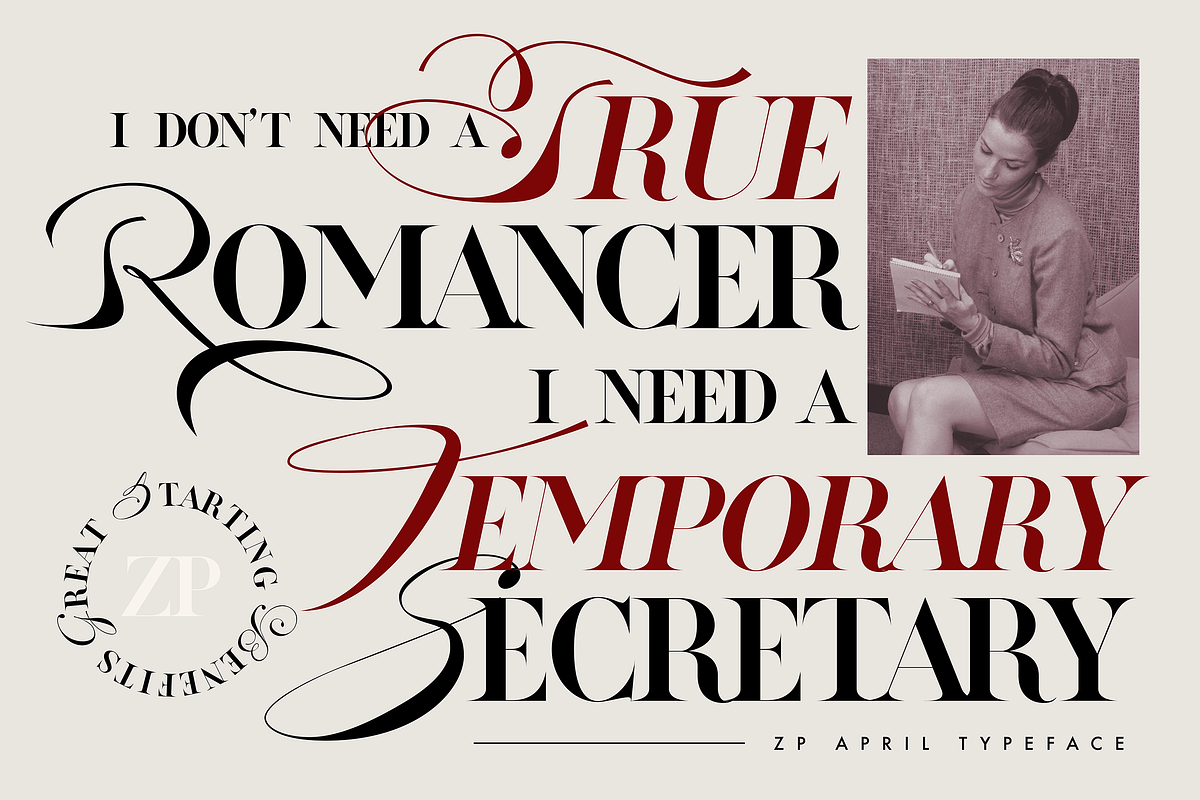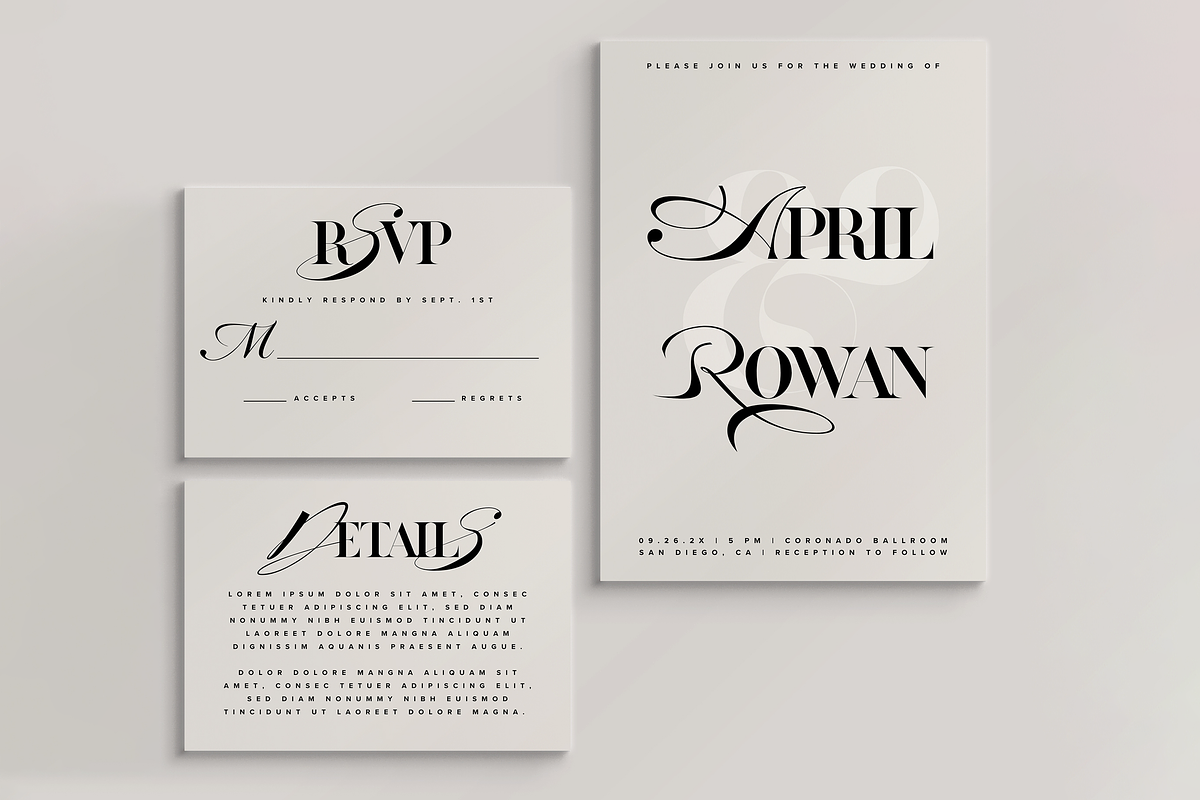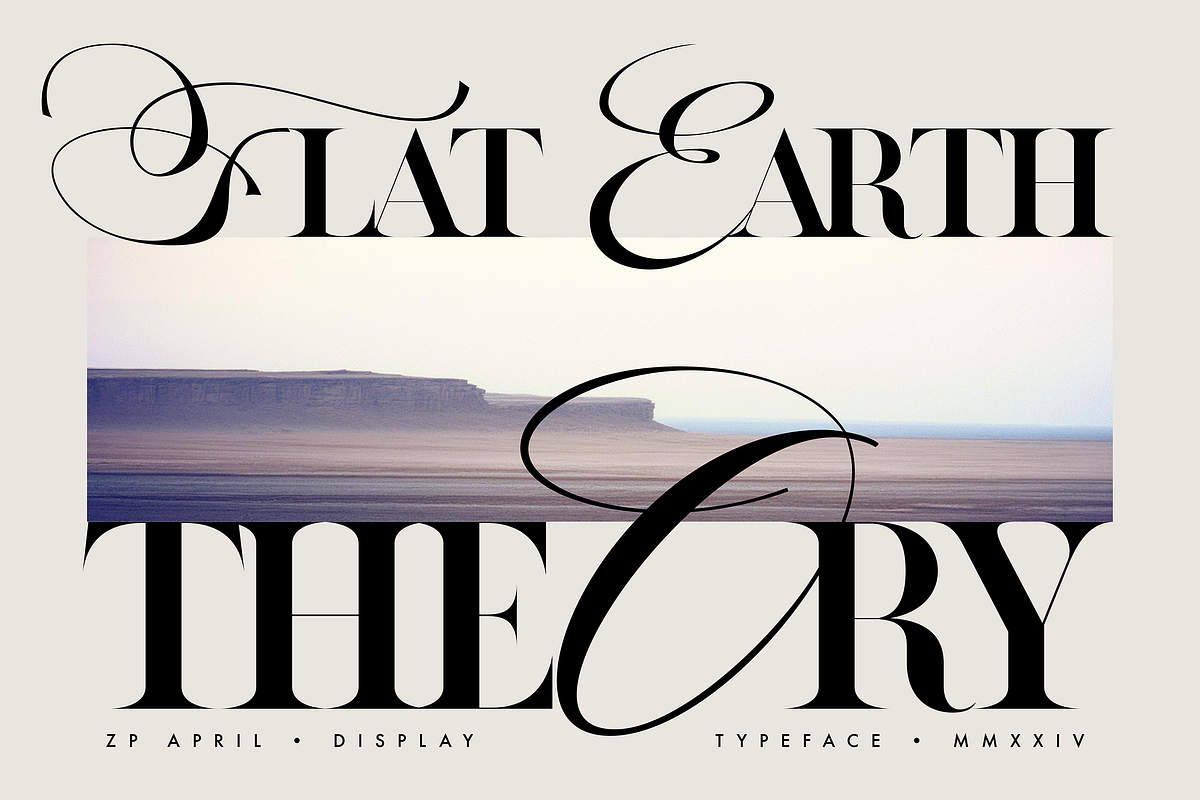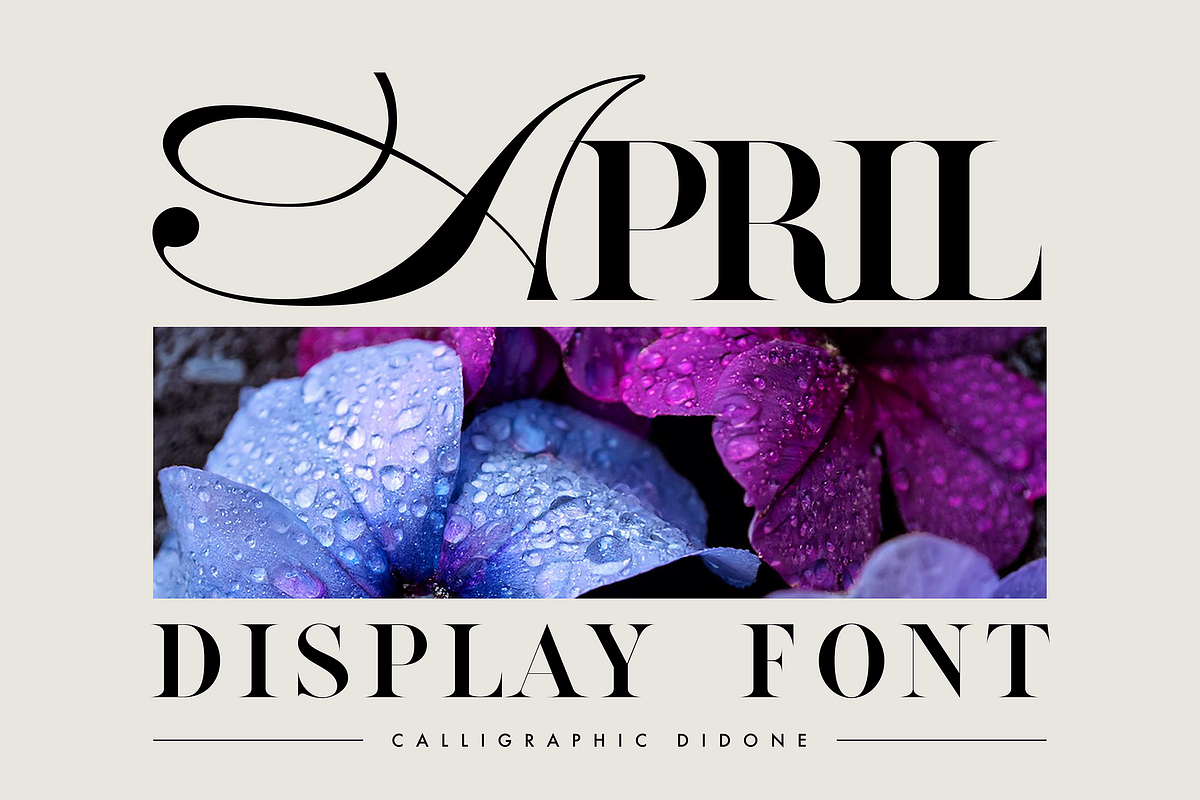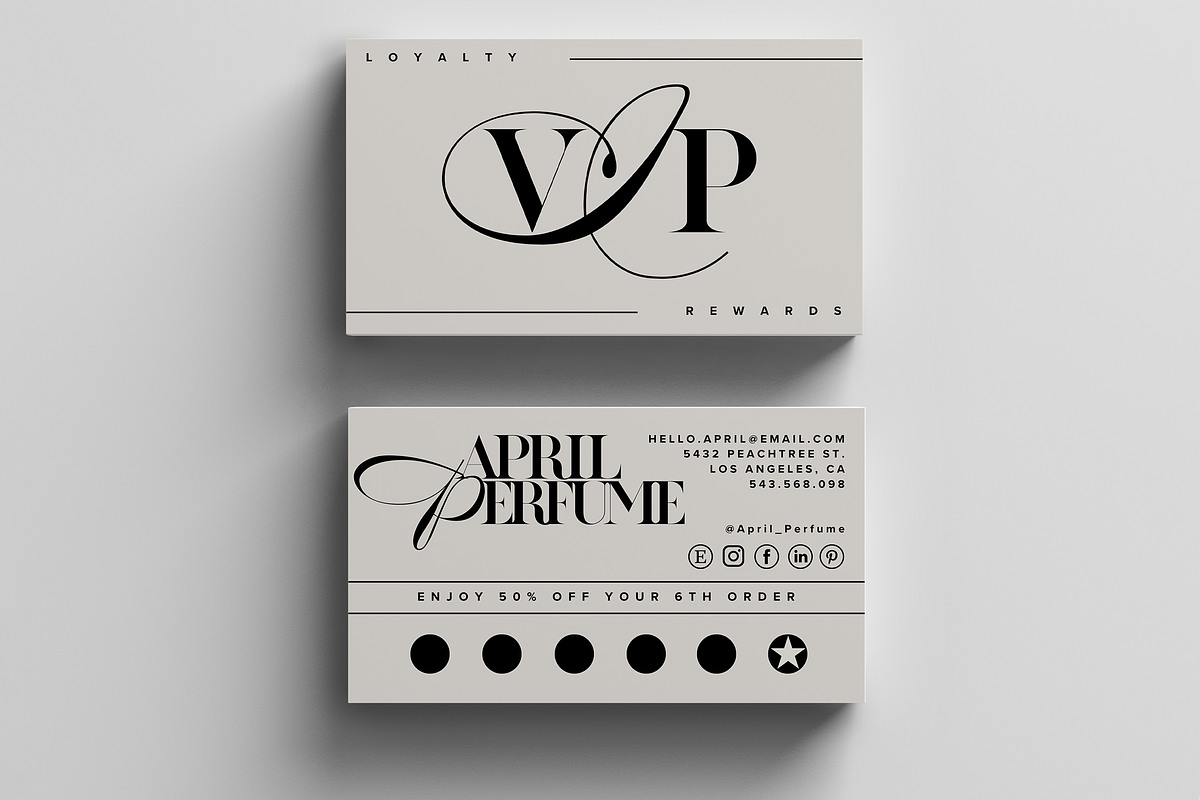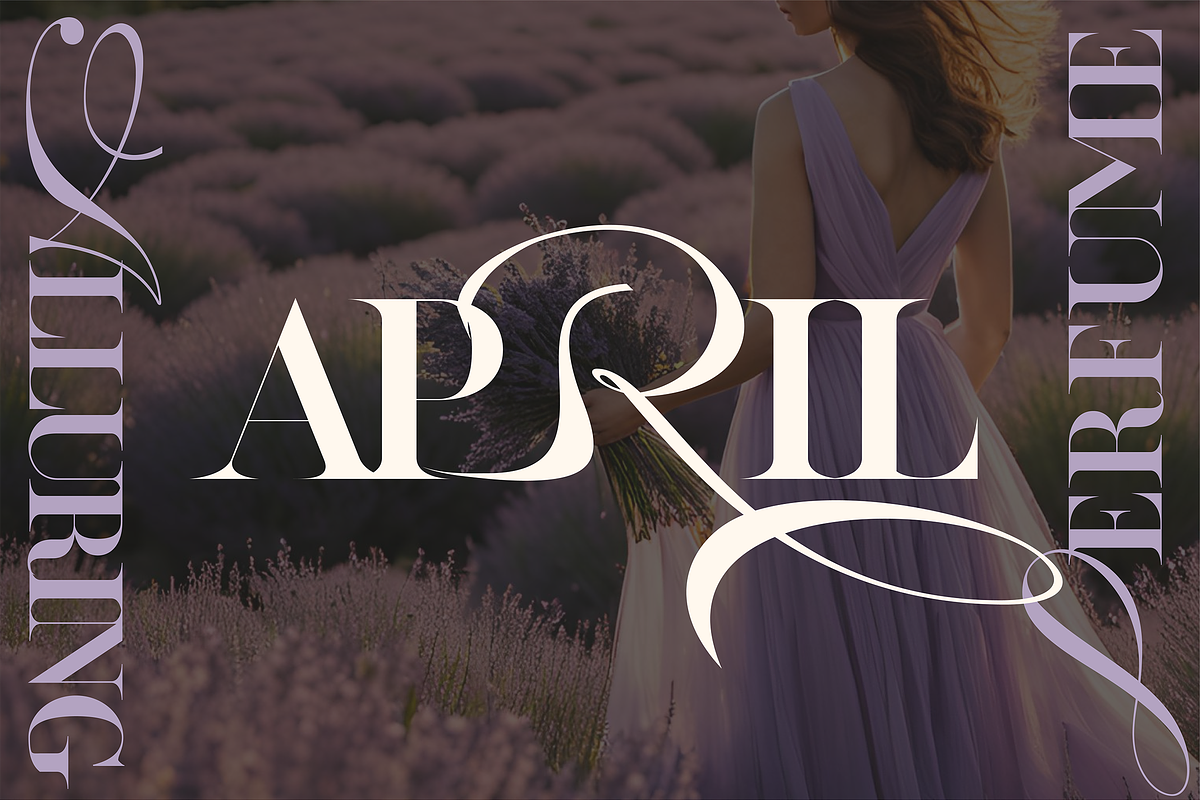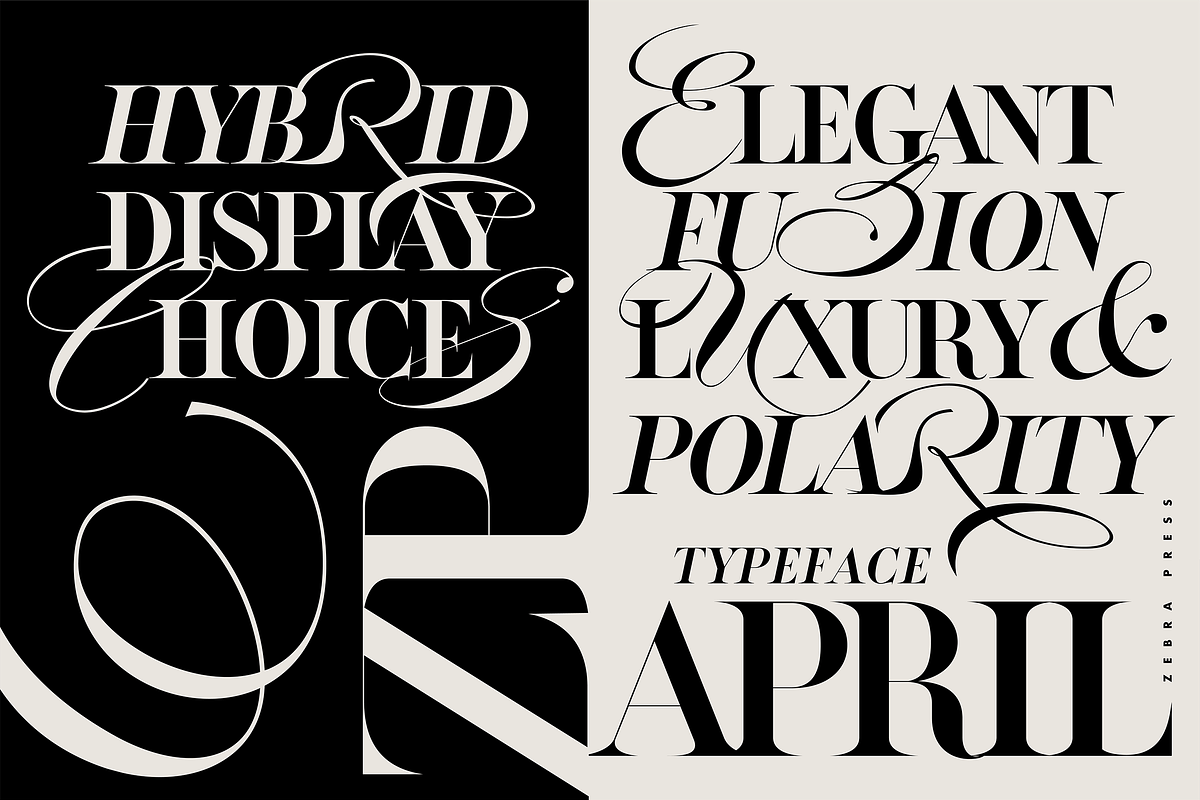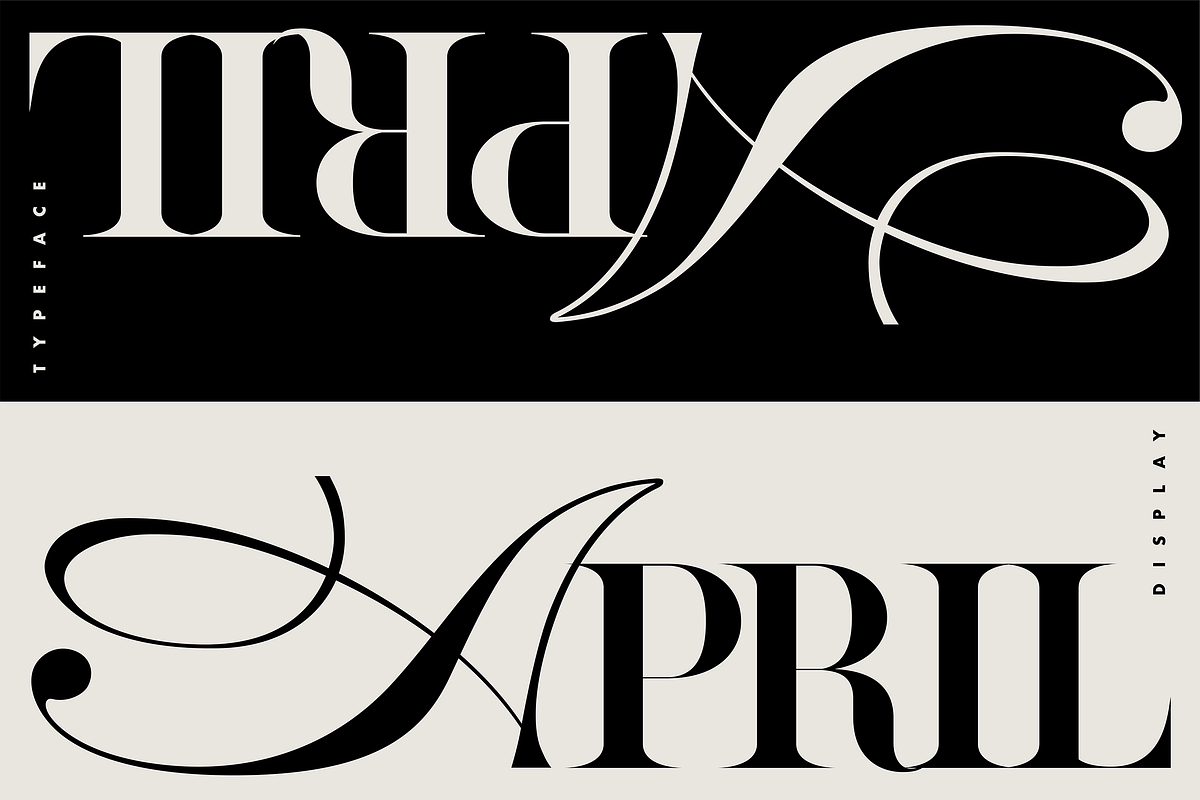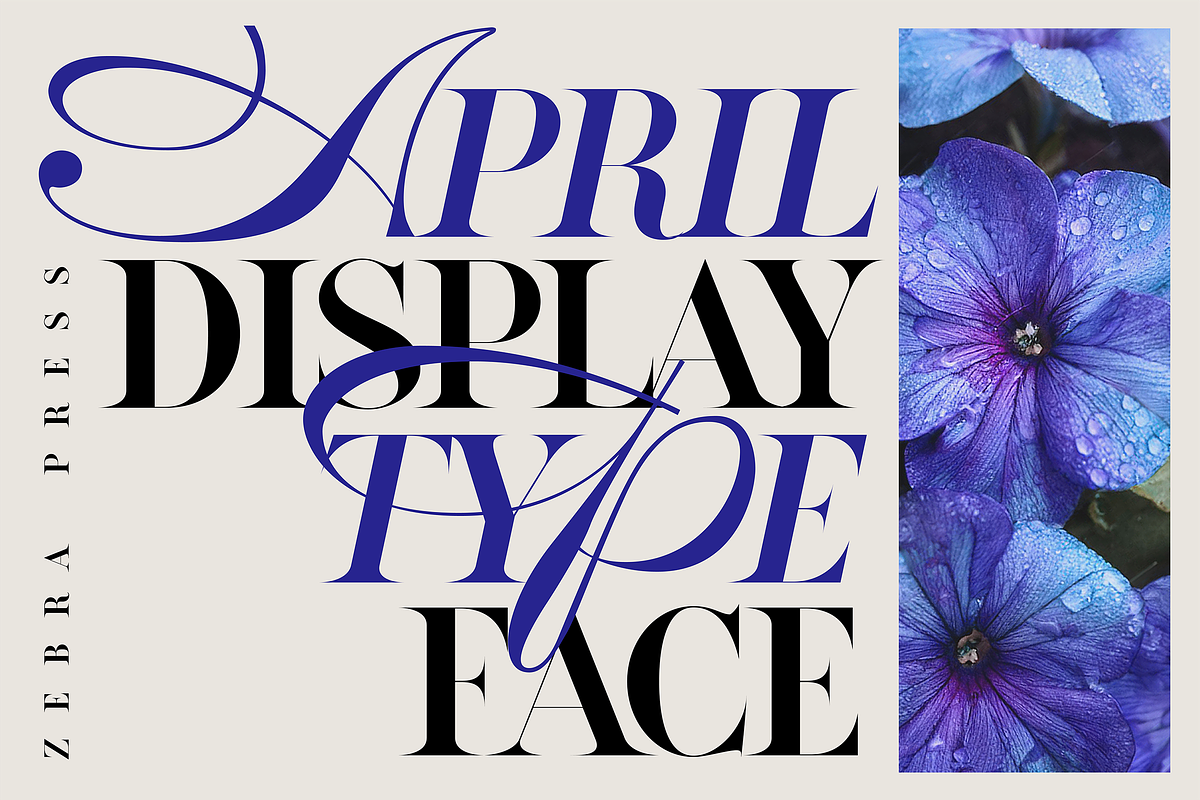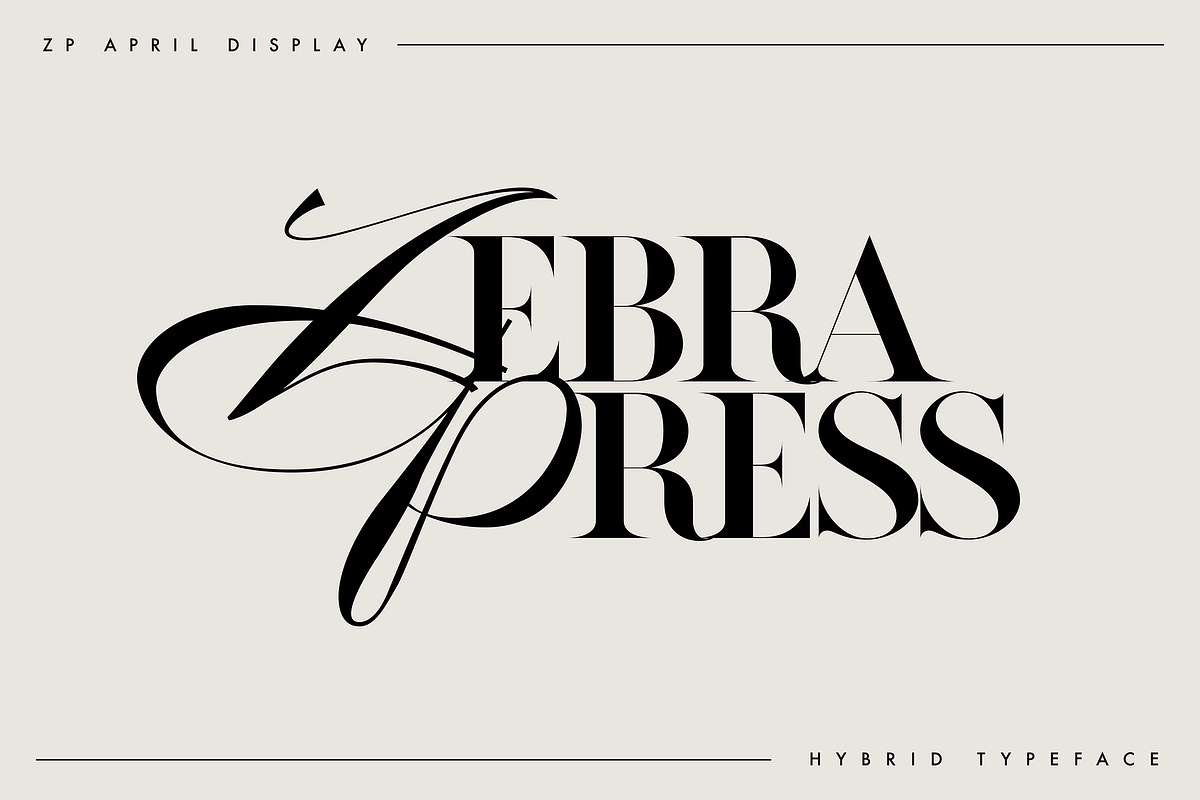
ZP APRIL - Luxury Hybrid Font
ZP APRIL is an elegant luxury display font with calligraphic capital letters & a lowercase sharp didone serif.
This typeface also comes with italic versions & bold versions (slightly bolder lowercase). This hybrid font is great for branding, weddings, small business, florists, photographers, magazines, music albums covers, store displays & poster displays & more.